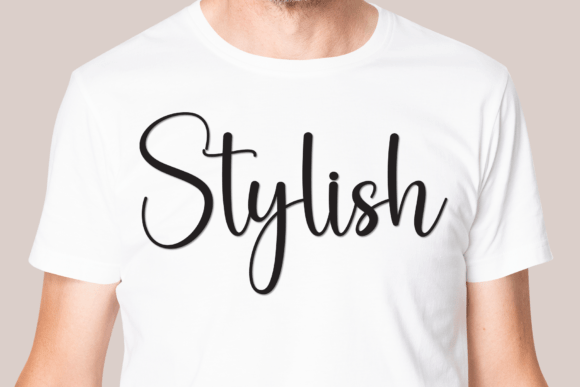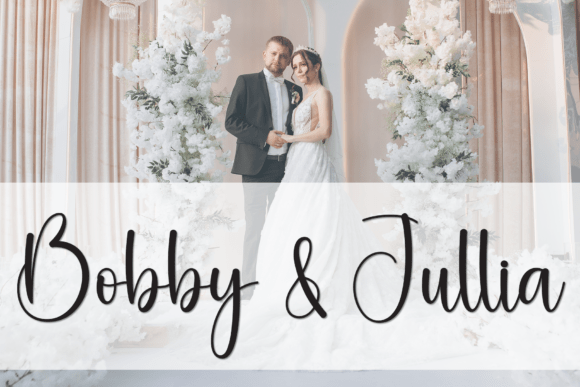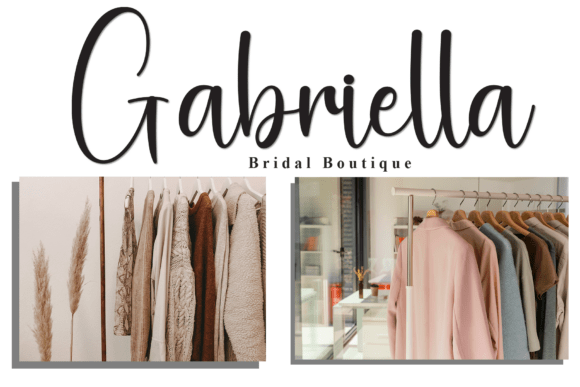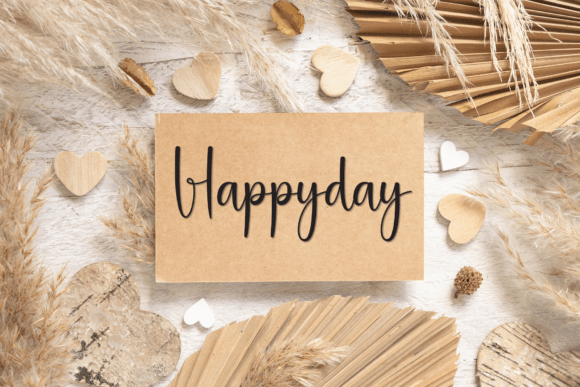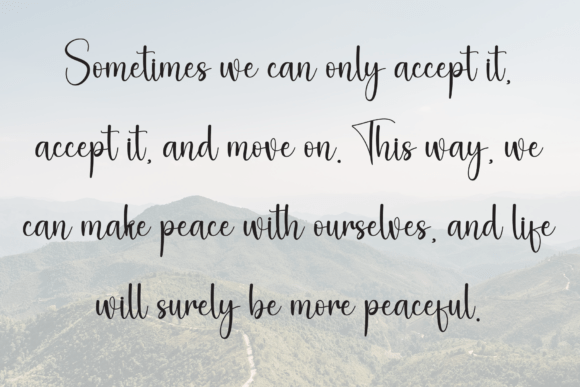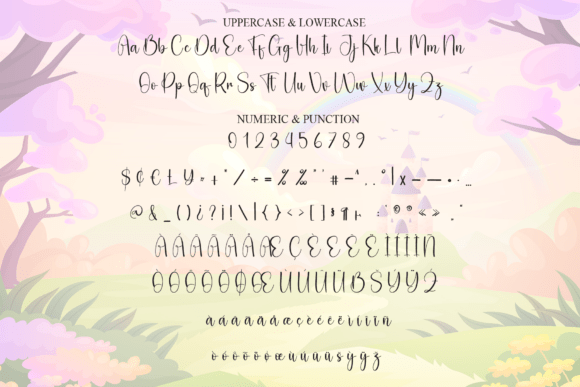
Introducing Fairytale Font: A Whimsical Typeface for Enchanting Designs
Are you searching for a font that can add a touch of magic to your designs? Look no further than Fairytale Font, a sublimely handcrafted display font that combines playful charm with delicate elegance. This captivating typeface is perfect for designers and crafters who want to infuse their projects with a radiant glow of warmth and charisma.
A Unique Blend of Playfulness and Sophistication
Fairytale Font is a one-of-a-kind typeface that boasts a unique blend of playful charm and refined elegance. Its irresistible appeal makes it the perfect choice for designing elegant wedding invitations, bespoke greeting cards, and other projects that require a touch of whimsy and sophistication. Whether you’re a seasoned designer or a crafty DIY enthusiast, this font is sure to become your go-to ally for adding a dash of magic to your creations.
Fairytale Font is a versatile typeface that can be used for a wide range of projects, including:
- Elegant wedding invitations and stationery
- Bespoke greeting cards and gift tags
- Whimsical branding and packaging designs
- Enchanting children’s books and educational materials
- Delightful digital graphics and social media assets
What Sets Fairytale Font Apart
So, what makes Fairytale Font so special? Here are just a few features that set it apart from other typefaces:
- Handcrafted with love: Fairytale Font is a carefully crafted typeface that has been designed with attention to detail and a passion for beauty.
- Unique character set: This font features a unique character set that includes a range of letters, numbers, and punctuation marks, ensuring that your designs stand out from the crowd.
- Playful yet elegant: Fairytale Font strikes the perfect balance between playfulness and elegance, making it suitable for a wide range of projects and design styles.
In conclusion, Fairytale Font is a captivating typeface that is sure to enchant designers and crafters alike. Its unique blend of playful charm and delicate elegance makes it perfect for a wide range of projects, from elegant wedding invitations to whimsical branding designs. With its handcrafted character set, ease of use, and versatility, Fairytale Font is the perfect choice for anyone looking to add a touch of magic to their designs.